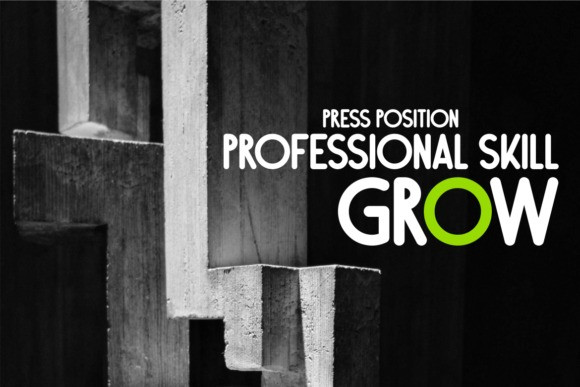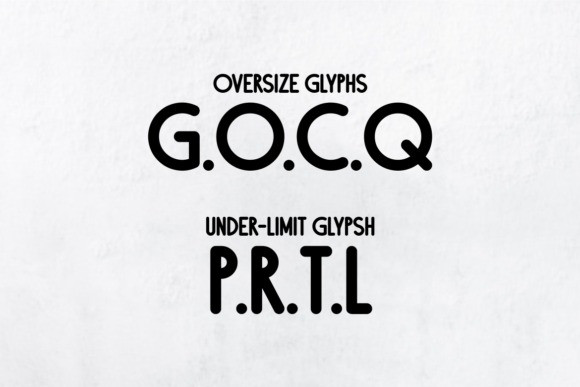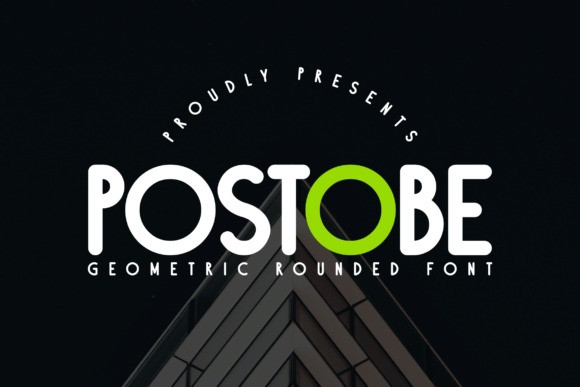
Postobe Font
Postobe Font is a font that has 3 sizes in its glyphs, some are made shorter, some are made normal and some are wider. This is intended to find the geometric side of each intersection of the resulting letters.
Postobe Font, Perfectly fit for branding, logo, wedding things, greeting cards, fashion, lookbook, marketing promotion, anytime you want to look fancy elegant but still casual.